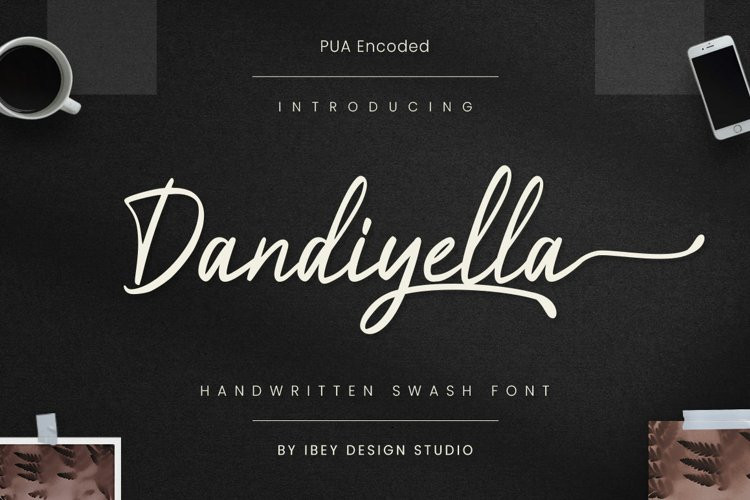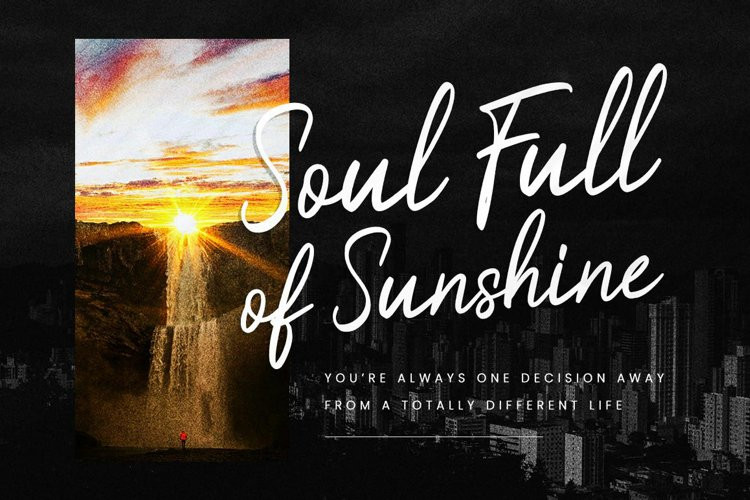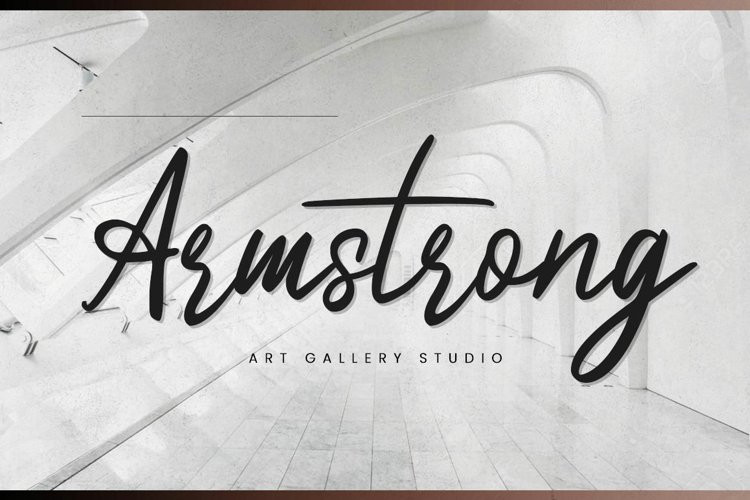
Dandiyella Font
Dandiyella FontDandiyella Handwritten Swash Font is a lovely Swash font featuring charming, playful characters that seem to dance along the baseline. Add it to your most creative ideas, and notice how it makes them stand out!